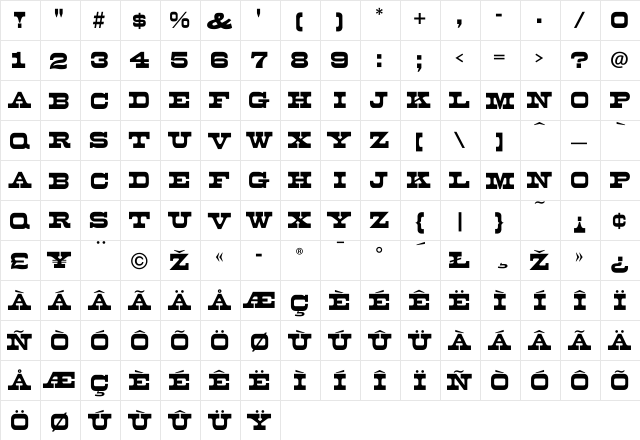
Mona-Regular Regular
Design Context for Mona-Regular Typeface
Mona-Regular takes a measured approach to typography — its balanced proportions and neutral character make it a reliable workhorse for both digital and print work.
Pro Tip: Pair Mona-Regular with a font of contrasting weight or personality to build a more expressive typographic hierarchy.